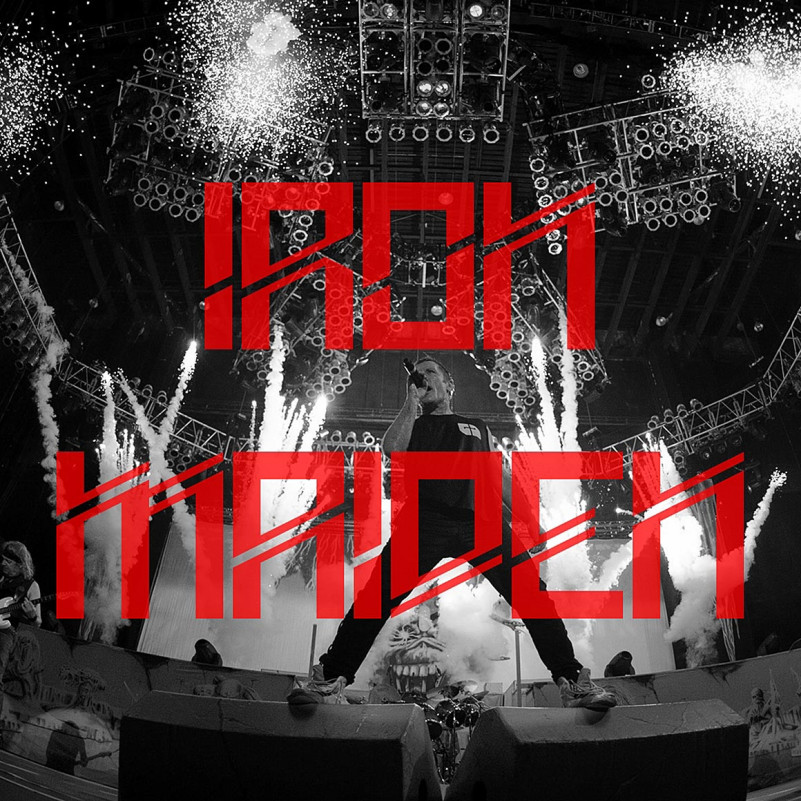
Eindhoven Font
Eindhoven Font – Set Jersey Font is a bold jersey-style display typeface inspired by European football culture and the strong identity of the city of Eindhoven—where classic heritage meets modern precision. Designed to capture the power, confidence, and energy of match-day visuals, this typeface brings an authentic stadium feel to your designs.